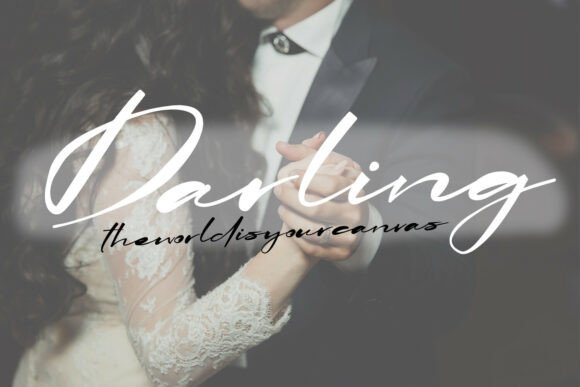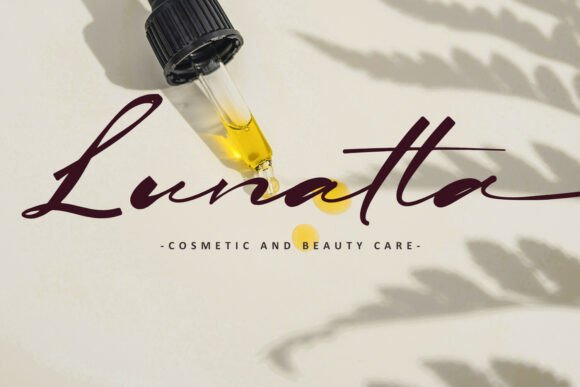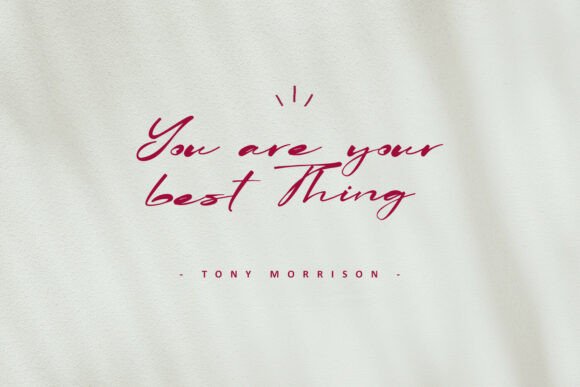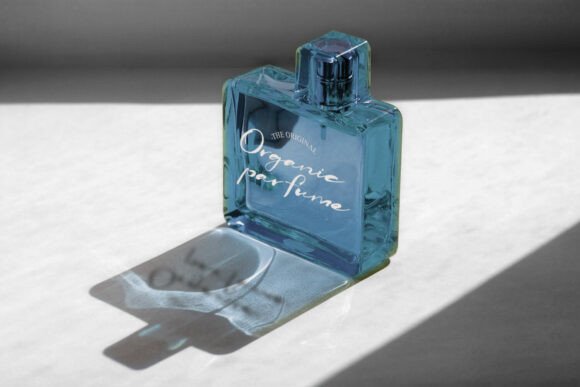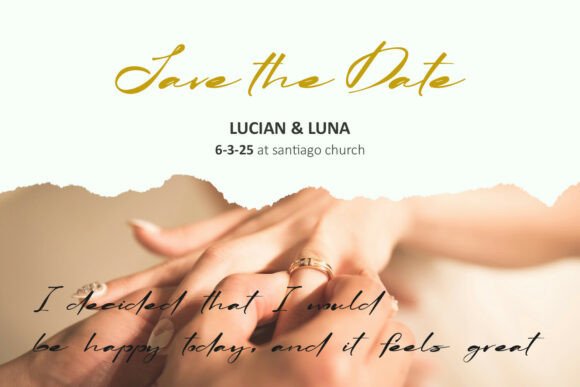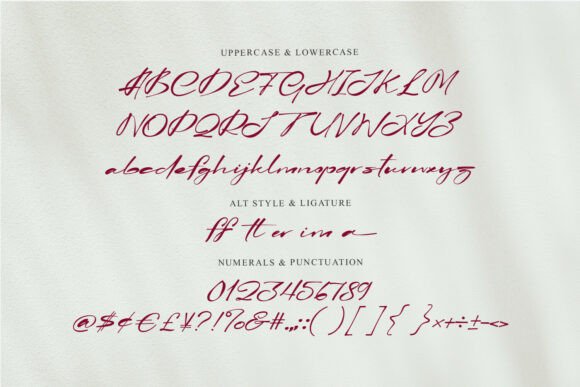
The Designer’s Delight: A Deep Dive into Graffinda Signature Font
Ah, the elusive perfect font. You know, that one that makes your design project go from meh to mesmerizing? I’ve been there, done that, and got the t-shirt (which, coincidentally, was designed with a fabulous font). It was a typical Wednesday evening, and I was working on a branding project for a luxury client. The logo, the colors, everything was coming together beautifully, but the font I had chosen just wasn’t cutting it. It lacked that certain je ne sais quoi, that elegance and sophistication the client was craving. That’s when I stumbled upon Graffinda Signature, and let me tell you, it was love at first sight! 💕
So, what makes Graffinda Signature so special? Let’s dive into the good stuff! ✨
- ✅ Elegant and Classy: Graffinda Signature boasts beautiful calligraphic influences that scream luxury and sophistication.
- ✅ Contemporary and Fresh: Despite its classic roots, this font feels modern and on-trend, perfect for designers looking for something that will make their work stand out.
- ✅ Versatile: Whether you’re working on a logo, a wedding invitation, or a packaging design, Graffinda Signature adapts seamlessly.
Now, no font is perfect, and Graffinda Signature has a few minor quirks to consider: 🤔
- ⚠️ Legibility at Small Sizes: Like many script fonts, Graffinda Signature can get a bit tricky to read at very small sizes. Make sure to test it in your design to ensure it’s legible.
- ⚠️ Overuse of Swashes: While the swashes and stylistic alternates are gorgeous, overusing them can make your text look cluttered. Balance is key!
While the origins of Graffinda Signature are shrouded in mystery, it’s clear that the designer was inspired by the world of high-end calligraphy and luxury branding. Imagine a designer who spent years perfecting the art of beautiful handwriting, traveling the world to study ancient scripts and modern calligraphy techniques. Their passion project, Graffinda Signature, was born out of a desire to create a font that would make designers swoon. And swoon we do! 💖
Q: What makes Graffinda Signature unique?
A: Graffinda Signature stands out with its exquisite calligraphic influences, contemporary feel, and extensive OpenType features, including swashes and stylistic alternates.
Q: Is Graffinda Signature suitable for body text?
A: While Graffinda Signature is stunning, it’s primarily designed for display text. For body text, consider a more legible font, but feel free to use Graffinda Signature for headings or pull quotes.